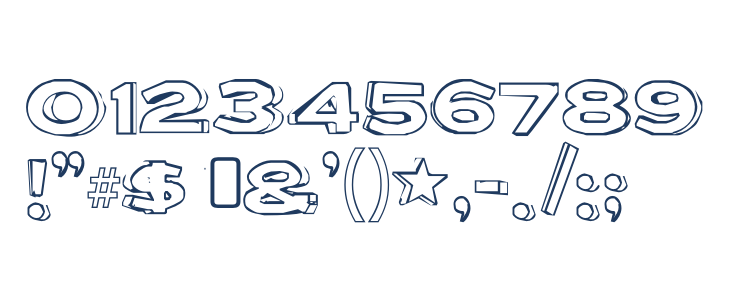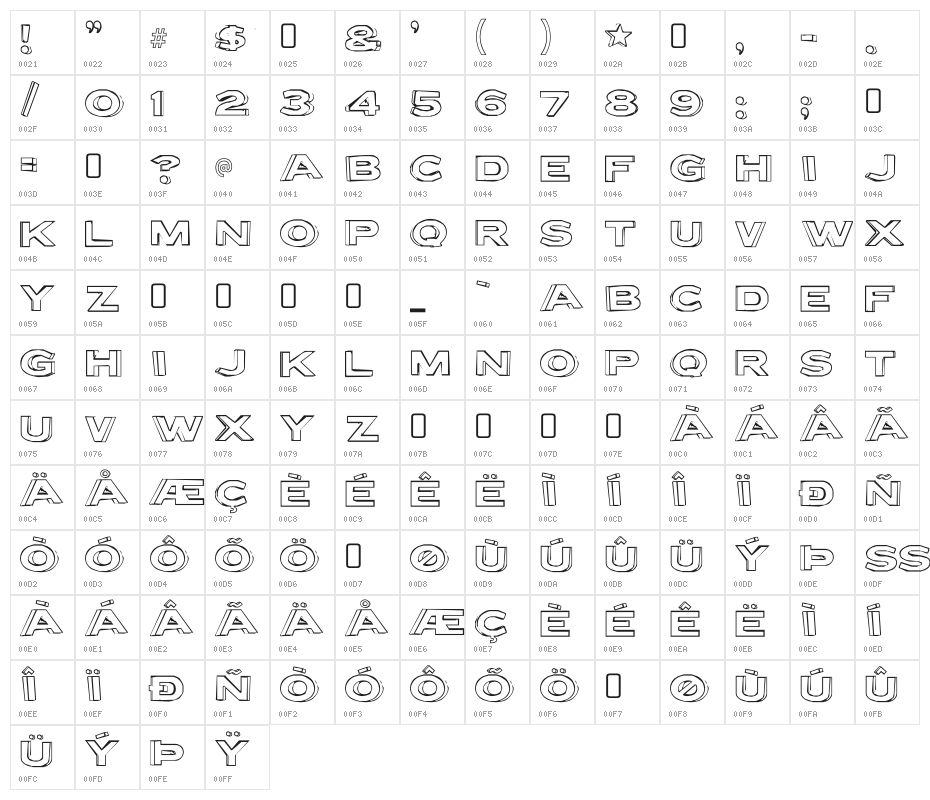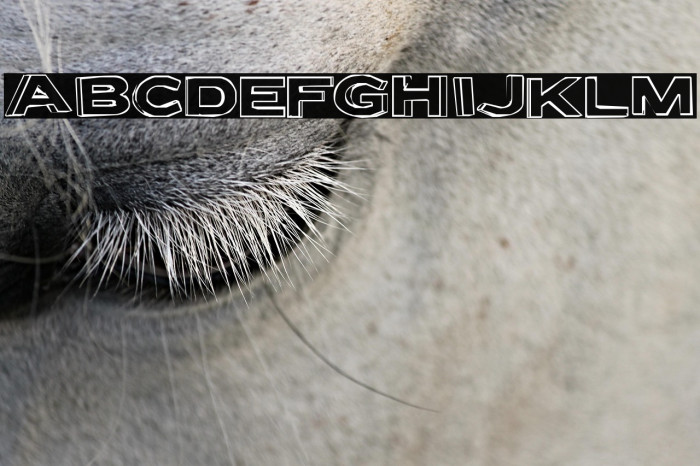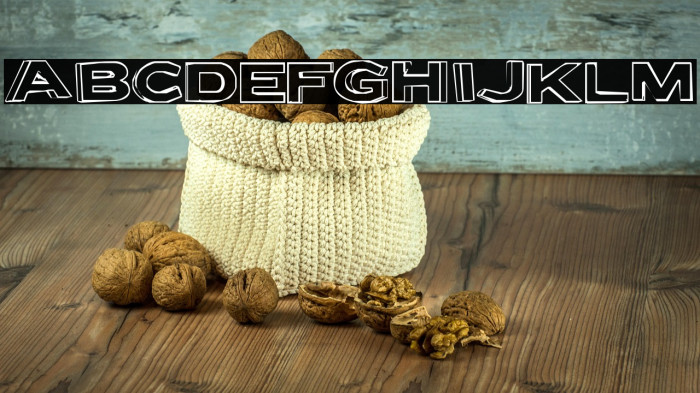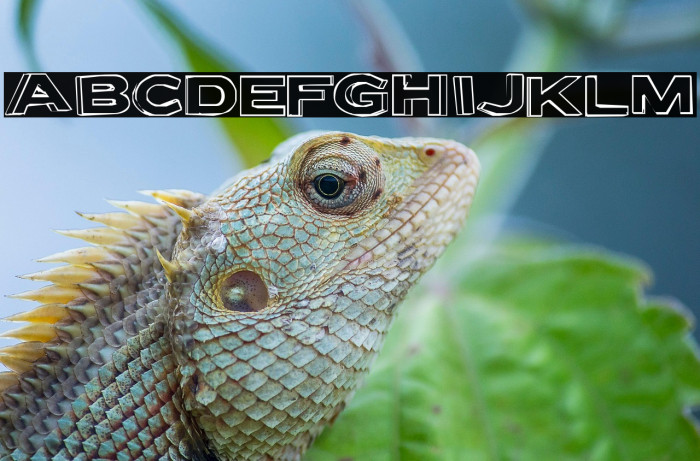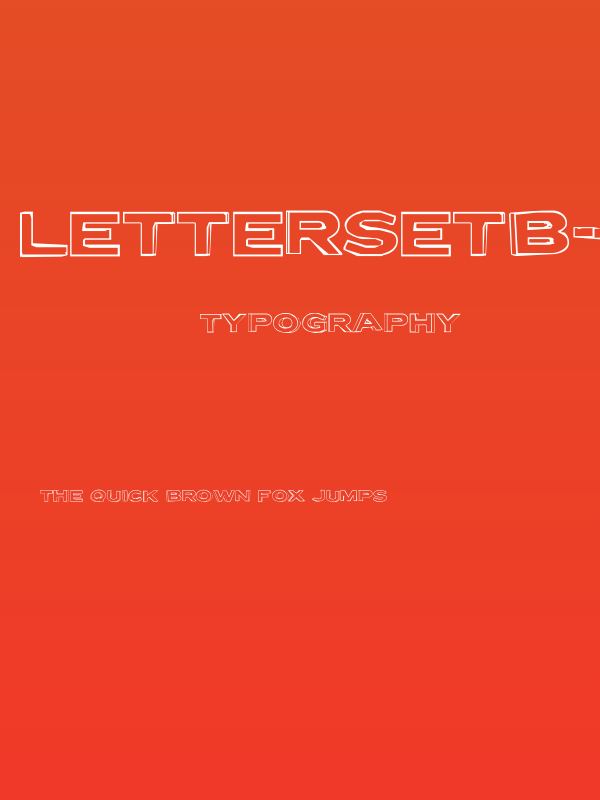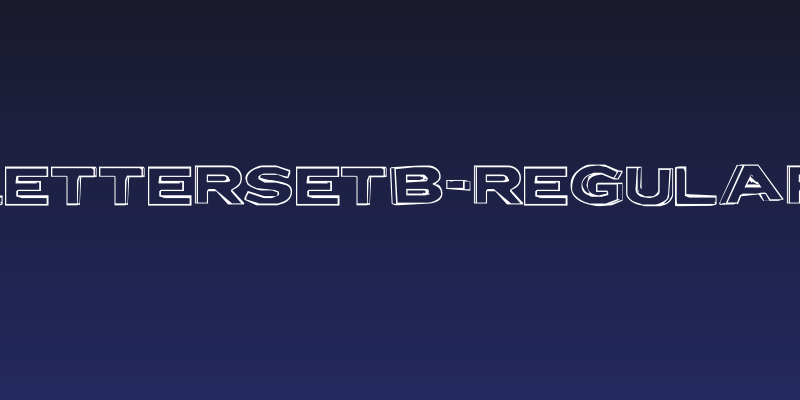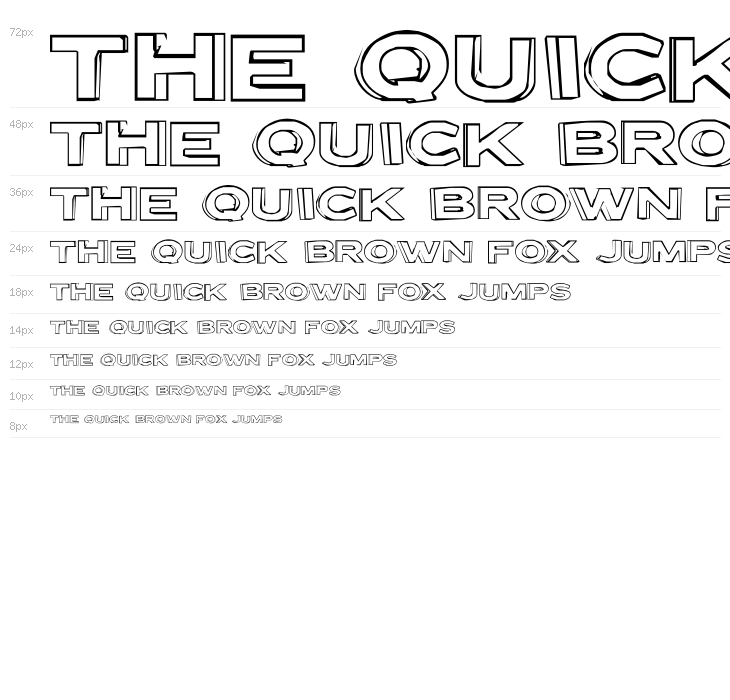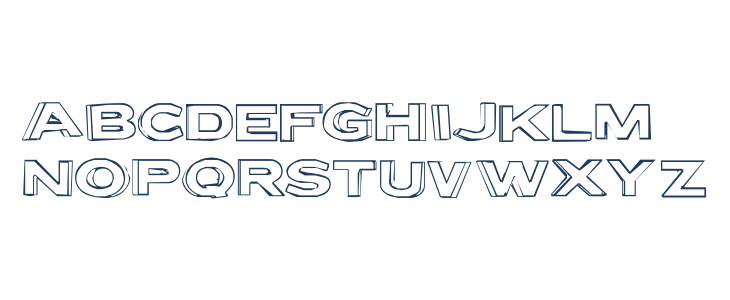
LetterSetB-Regular Font
LetterSetB-Regular Description
This font features a bold, three-dimensional outline style that gives each character a striking, shadowed appearance. The uppercase letters are robust and geometric, with clean lines and sharp angles that create a sense of depth and dimension. The numbers and special characters follow the same design principles, maintaining consistency across the set. The font's unique outline effect makes it ideal for eye-catching designs where a strong visual impact is desired. Its structured form and bold presence make it suitable for various creative applications.
| Proposed Projects | Ideal for posters, headlines, logos, and any design requiring a bold, impactful statement. |